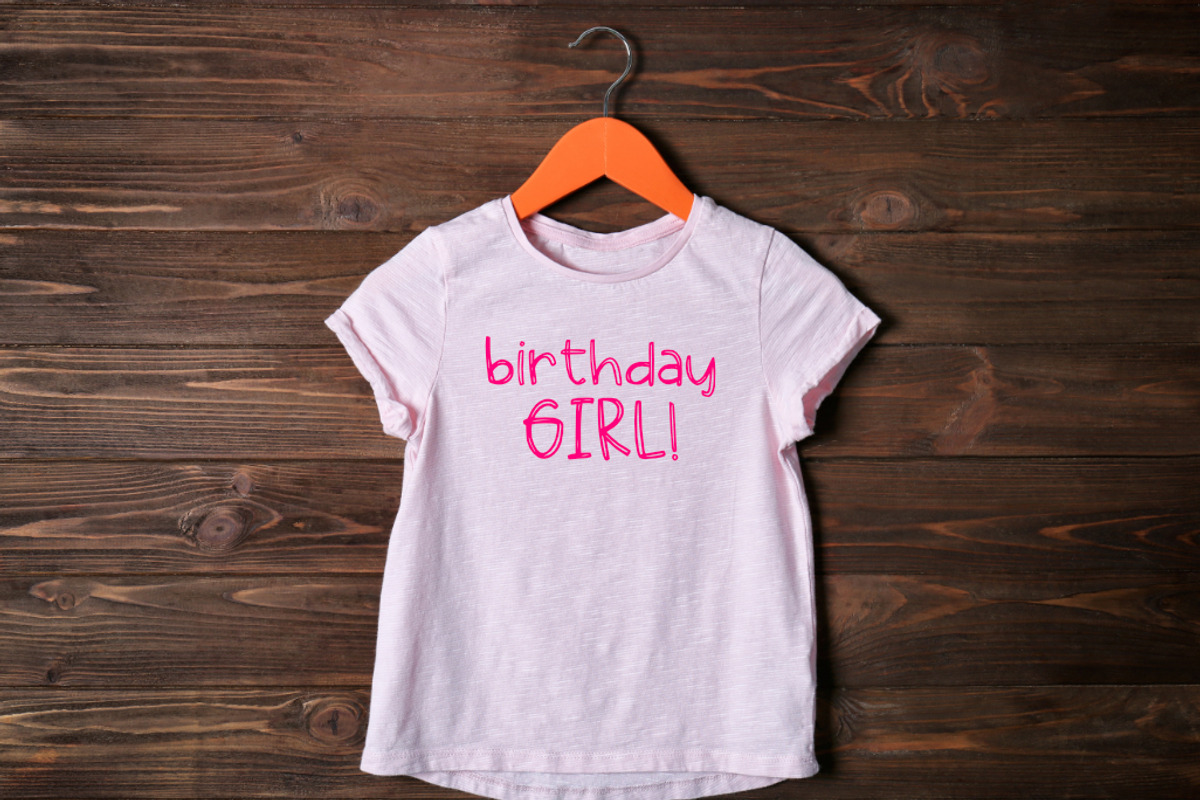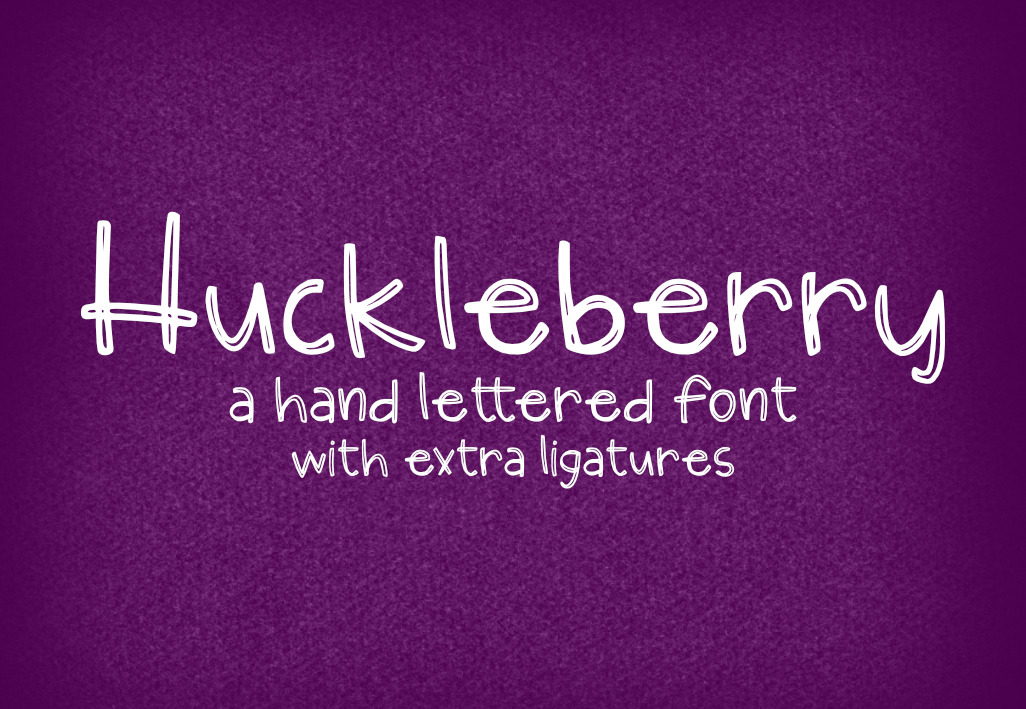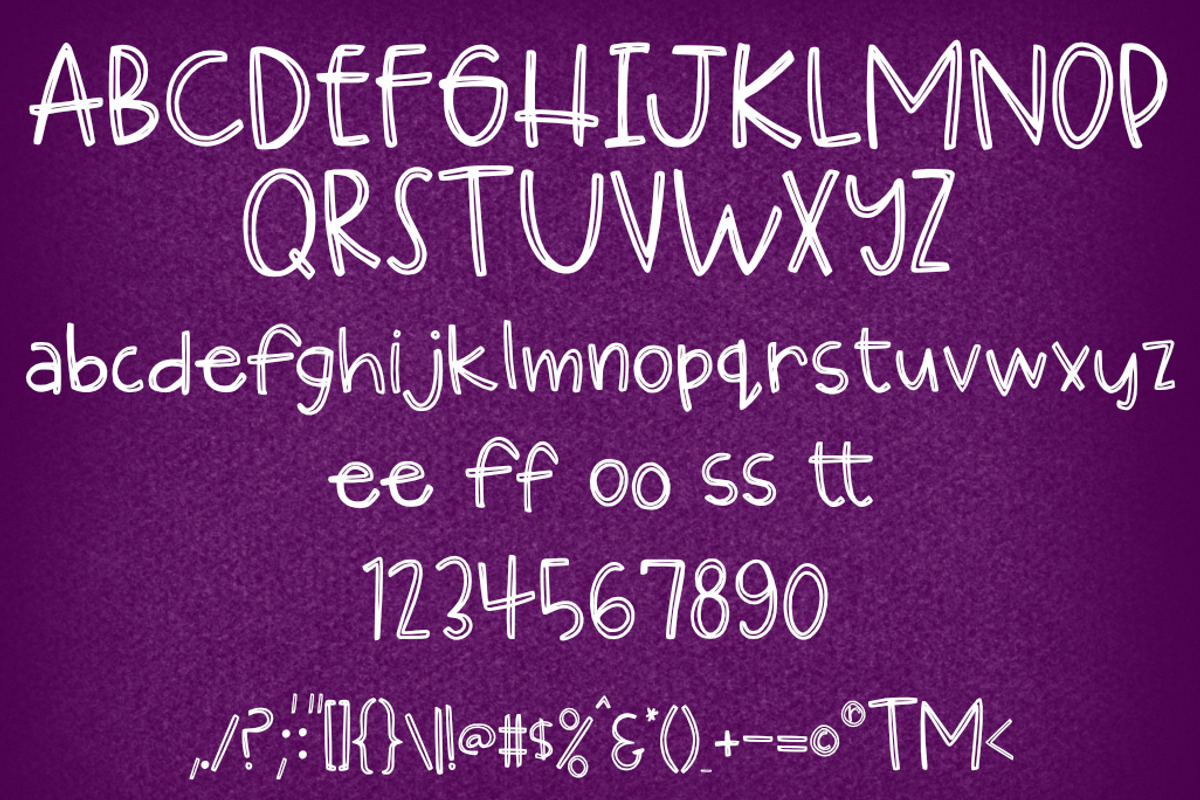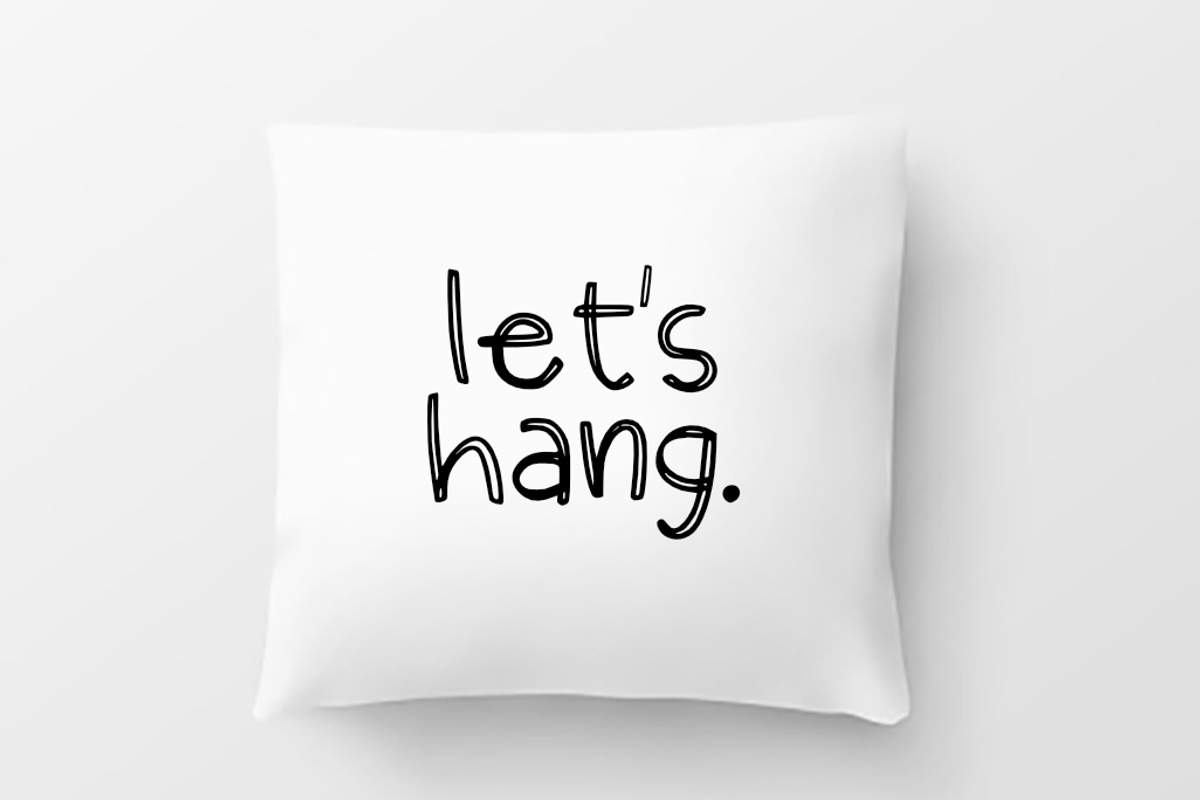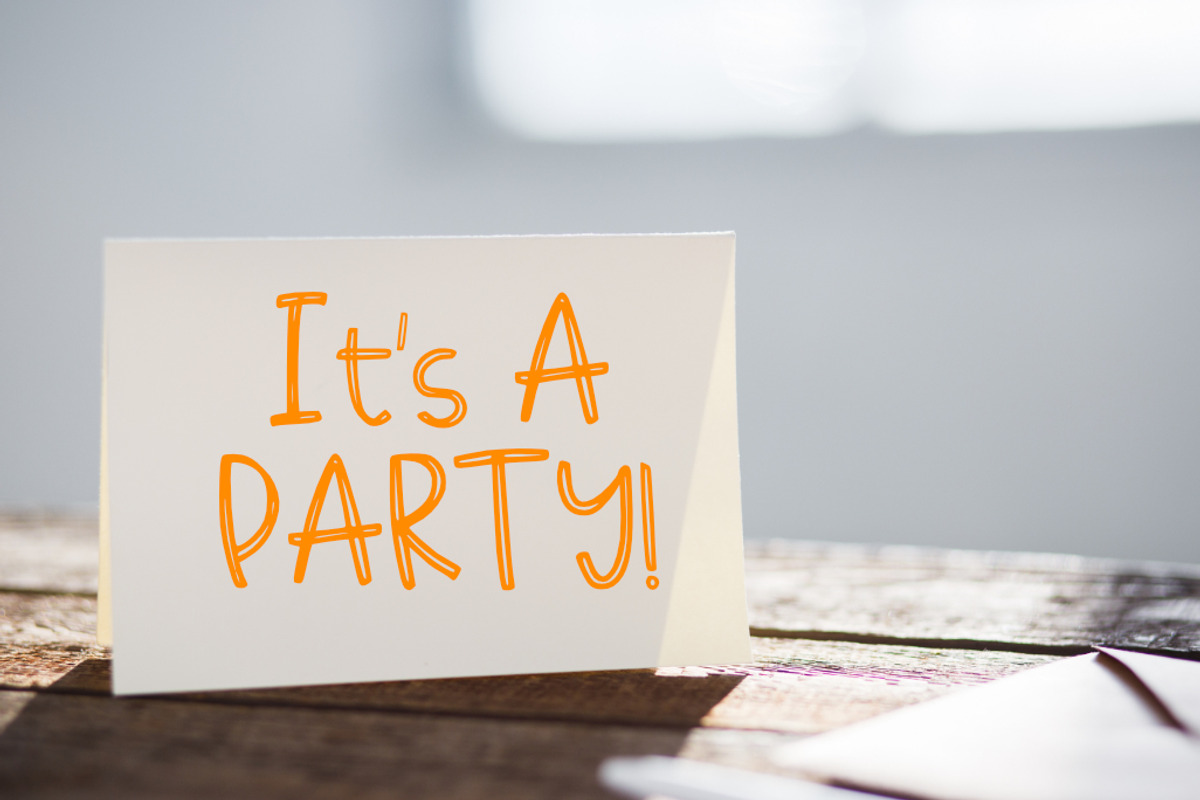
Huckleberry Hand-lettered Font
Inspired by my passion for hand-lettering, Huckleberry is a double line, clean, and fun font that looks great on greeting cards, perfect on mugs and combines seamlessly on just about any hand lettered project that comes your way.
- UPPERCASE
- lowercase
- Numbers & Symbols